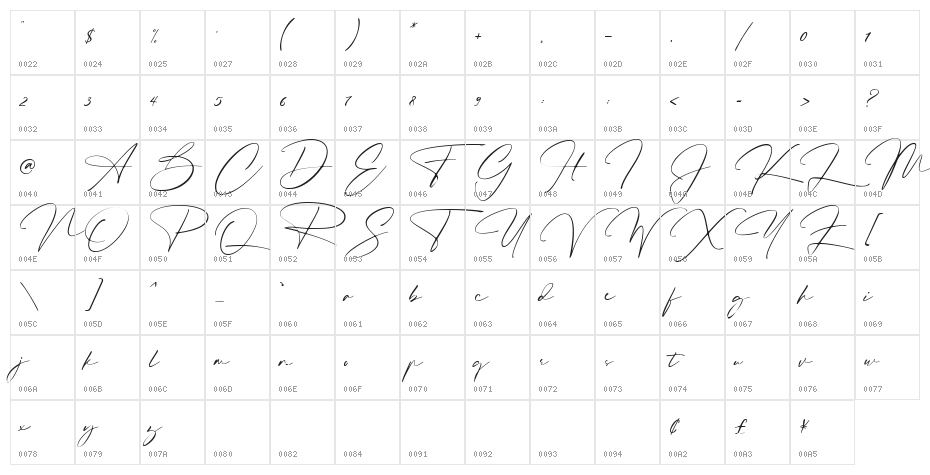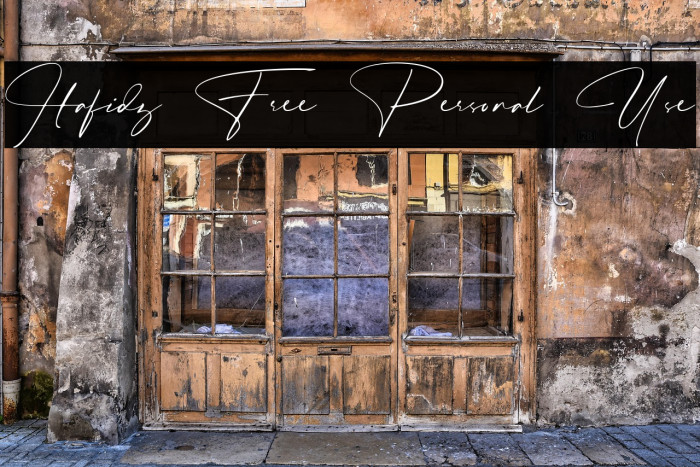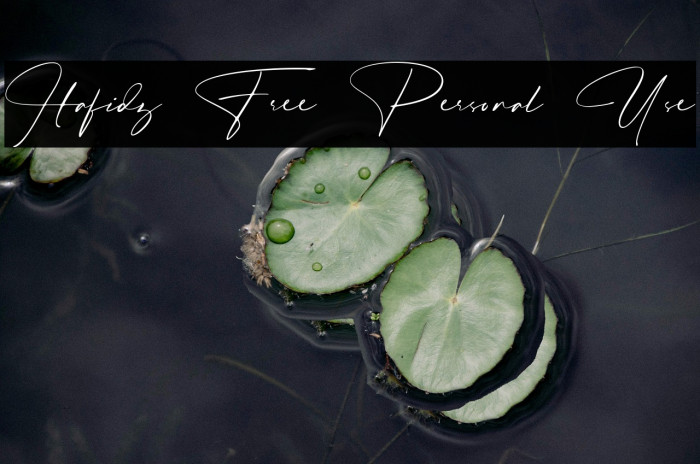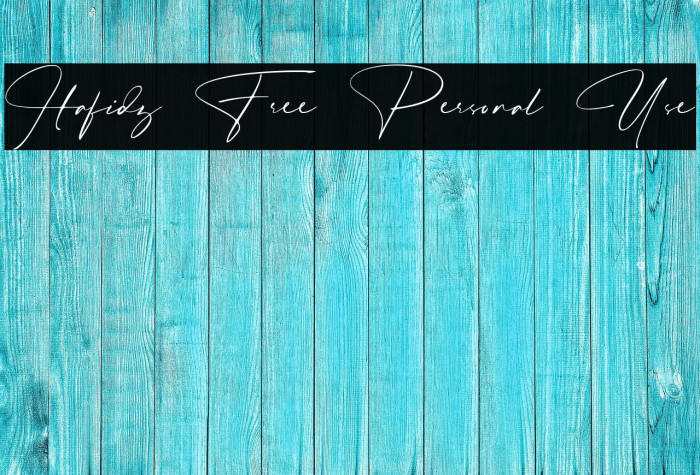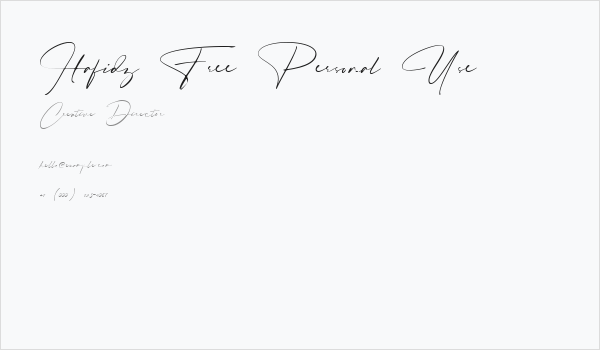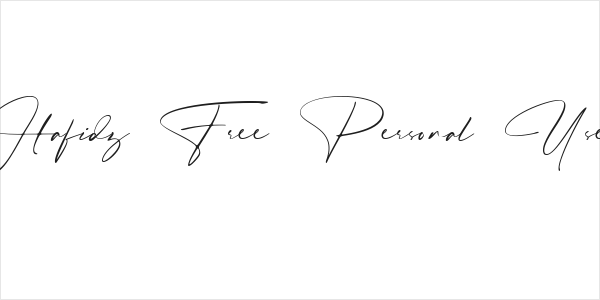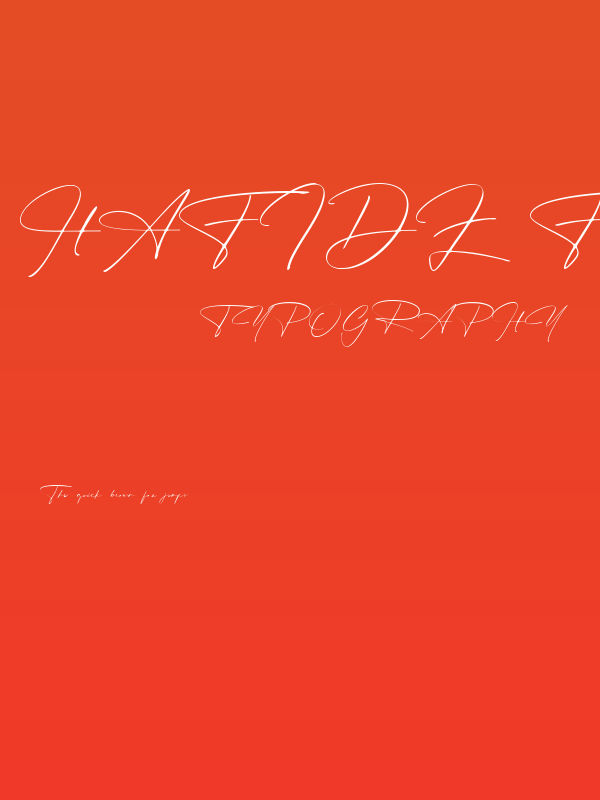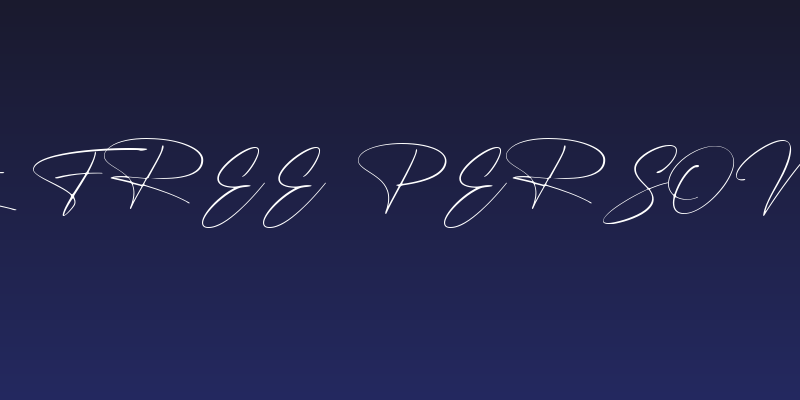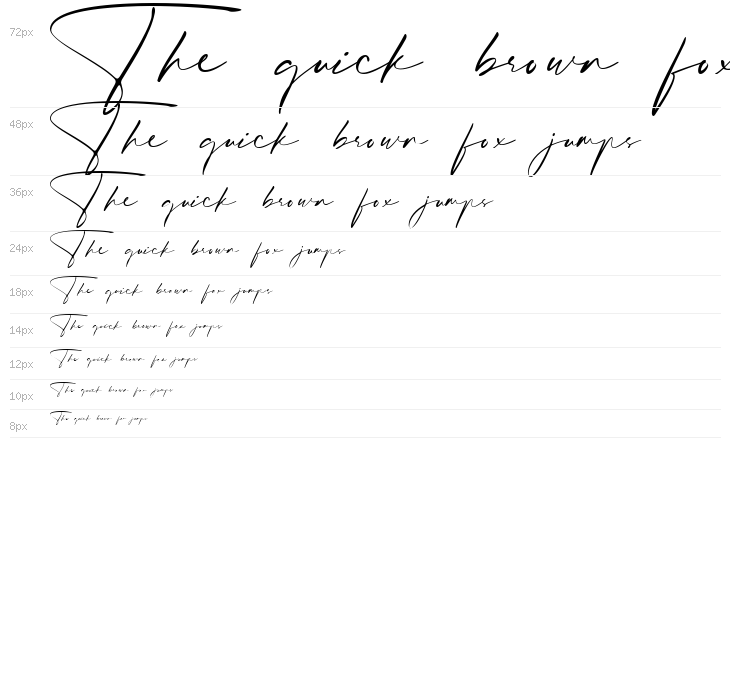
Hafidz Free Personal Use Font
Hafidz Free Personal Use Description
This font exudes elegance and sophistication with its flowing, cursive script style. The letters are gracefully connected, creating a seamless and fluid appearance. The uppercase letters are slightly more ornate, with delicate loops and swirls, while the lowercase letters maintain a consistent, smooth flow. The numerals and special characters complement the overall style, maintaining the same elegant and refined look. The font's thin strokes and high contrast between thick and thin lines add to its delicate and refined aesthetic, making it ideal for projects that require a touch of class and elegance.
| Proposed Projects | Ideal for wedding invitations, elegant branding, personal stationery, and upscale product packaging. |